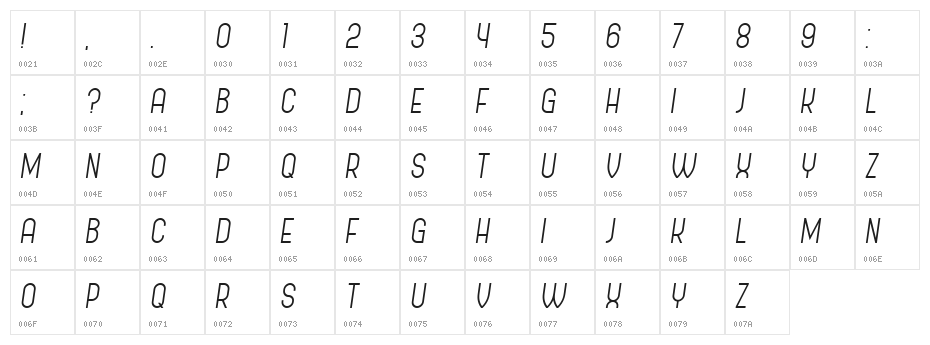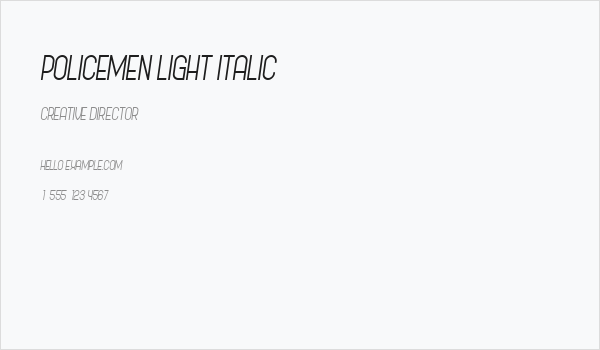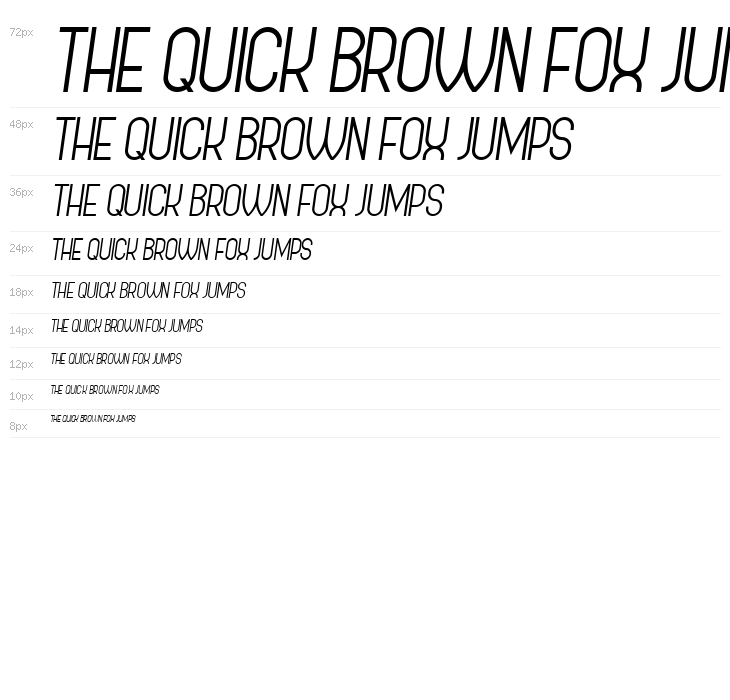
Policemen Light Italic Font
Policemen Light Italic Description
This font features a sleek, modern design with a distinct italic slant, giving it a dynamic and forward-leaning appearance. The characters are elongated with a consistent stroke width, contributing to a clean and streamlined look. The uppercase and lowercase letters maintain a uniform height, enhancing readability while preserving an elegant aesthetic. The numerals and special characters are designed to match the overall style, ensuring cohesion across different uses. Its geometric structure and minimalistic approach make it suitable for contemporary design projects.
| Proposed Projects | Ideal for branding, editorial design, advertising, and digital media where a modern and sophisticated look is desired. |